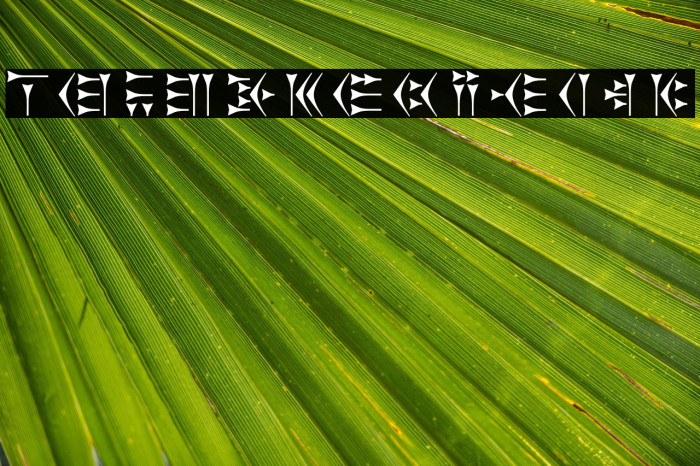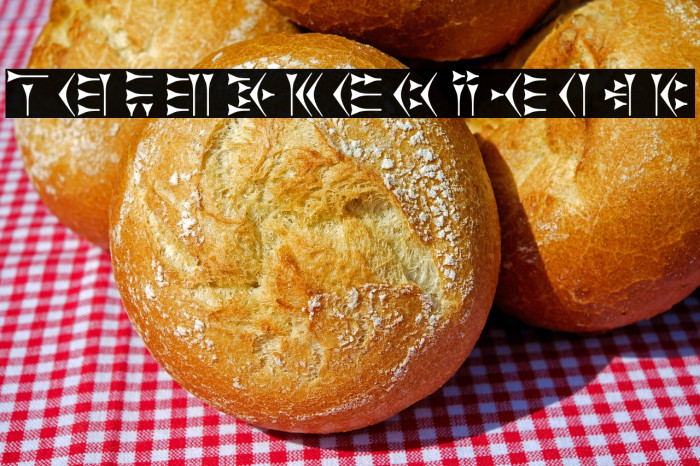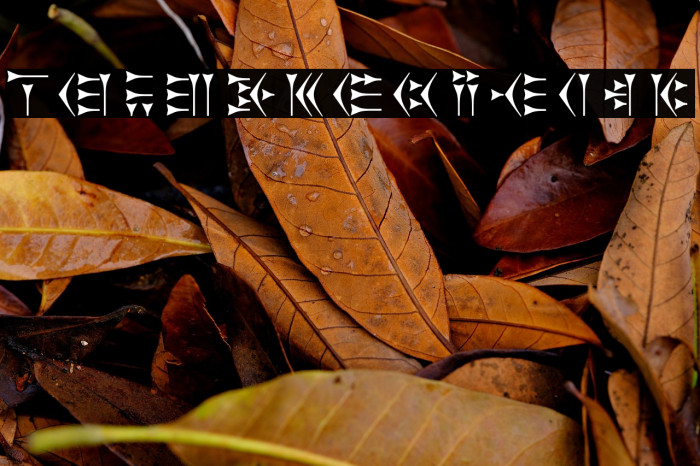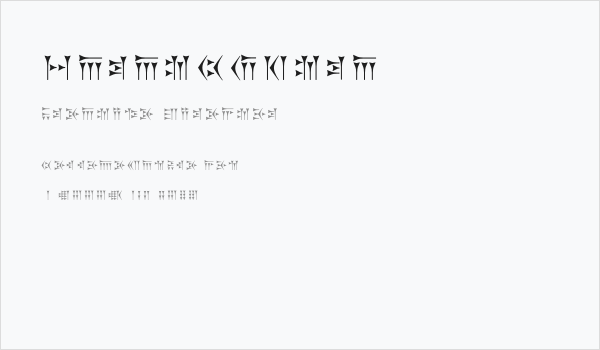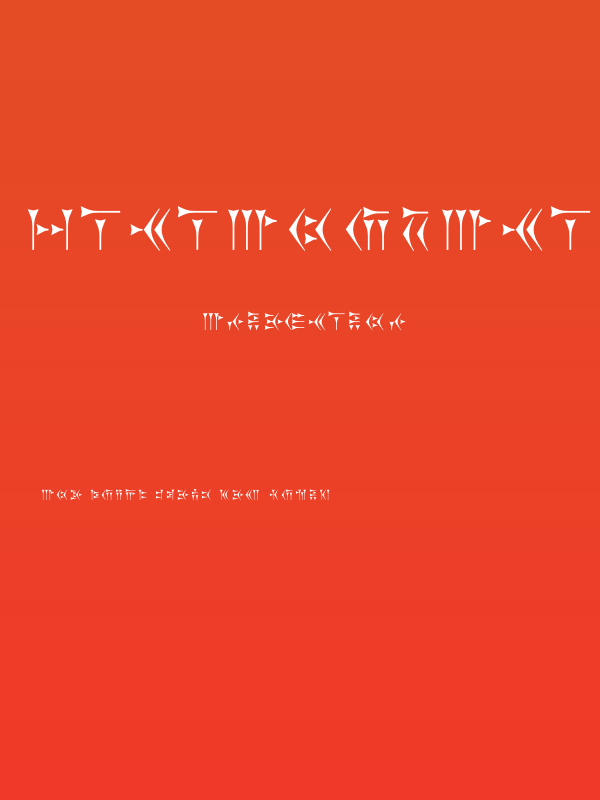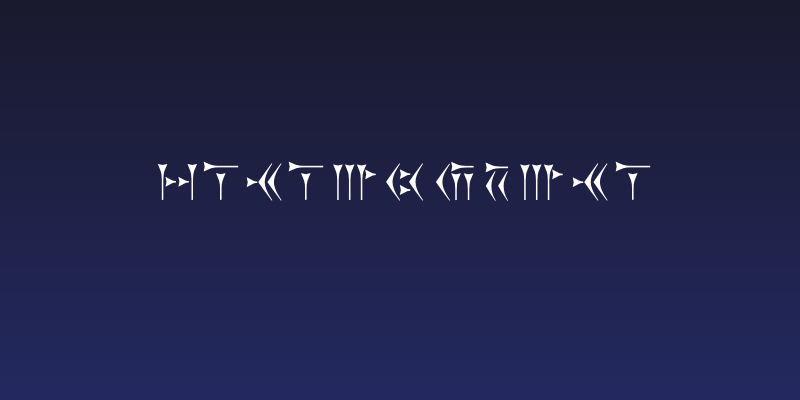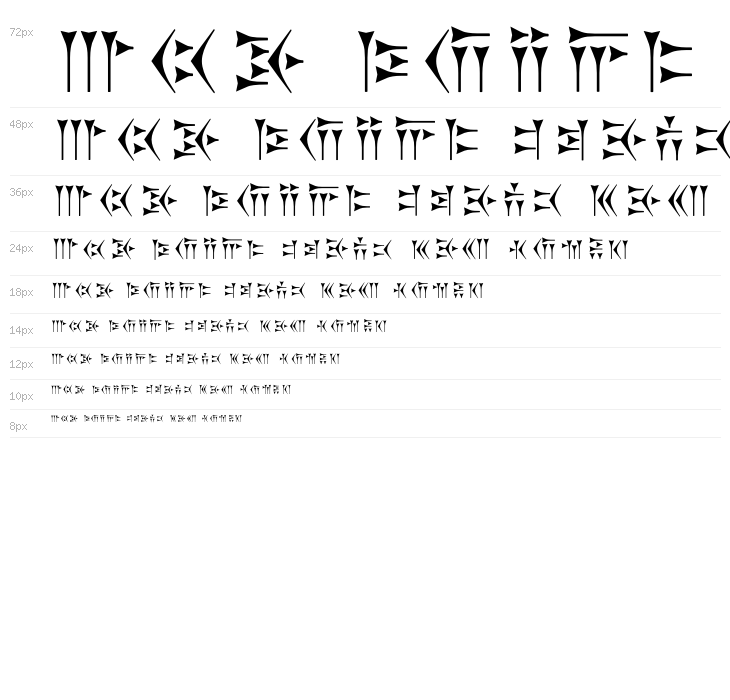
Zarathustra Font
Zarathustra Description
This font is a highly stylized, decorative typeface that draws inspiration from ancient script forms. It features angular, geometric shapes with sharp edges and a bold presence. The characters are distinct and carry a sense of mystery and antiquity, reminiscent of ancient inscriptions. The design is intricate, with each letterform crafted to create a cohesive yet unique appearance. This font is not suited for body text due to its complex design but excels in creating a dramatic visual impact.